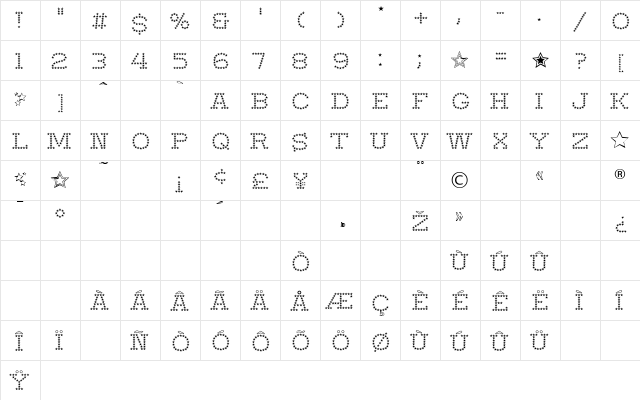
Startime Normal
Design Context for Startime Typeface
Startime takes a measured approach to typography — its balanced proportions and neutral character make it a reliable workhorse for both digital and print work.